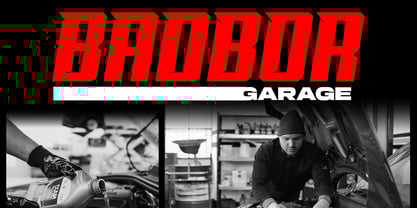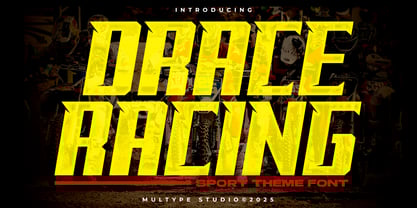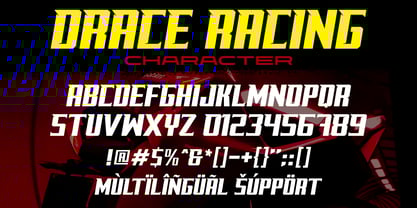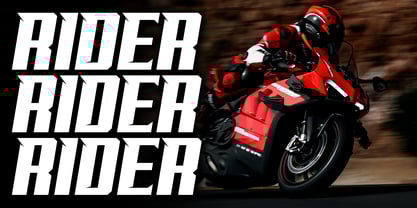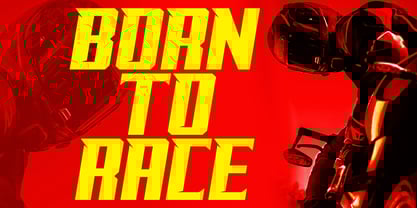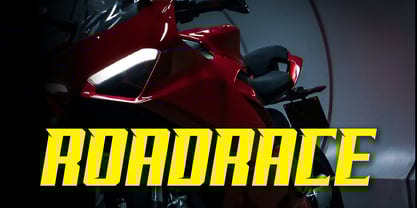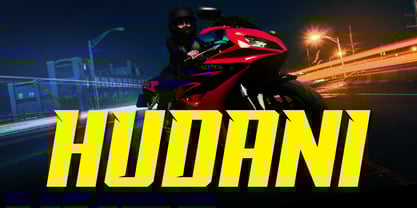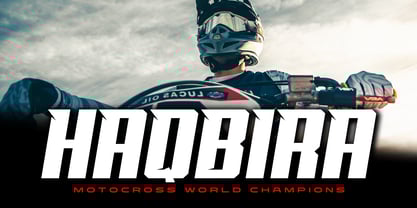
Drace Racing
by Multype Studio
The Drace Racing Font Family was designed by Mulia Yanto and published by Multype Studio. Drace Racing contains 1 styles. More about this family
DRACE RACING Font is a bold, aggressive, and high-speed display typeface designed for racing, motorsport, and extreme sports branding. With its sharp edges, dynamic slant, and powerful geometric structure, this font delivers a strong sense of motion, energy, and competition. Perfect for logos, posters, sports team graphics, racing event titles, and apparel design, it captures the adrenaline and intensity of the track. This font embodies speed, strength, and performance, making it ideal for projects that demand bold visibility and a fearless attitude. Whether used for drag racing, motorcycle events, or automotive brands, the DRACE RACING Font ensures your design stands out with power and impact. What’s Included : All Caps, Numbers & Symbols, Works on PC / Mac, Simple installations Accessible in the ( Adobe Illustrator, Adobe Photoshop, Adobe InDesign, even work on Microsoft Word ), PUA Encoded Characters, Fully accessible without additional design software, Multilingual support. Thank you for your purchase! Hope you enjoy with our font!
Designers: Mulia Yanto
Foundry: Multype Studio